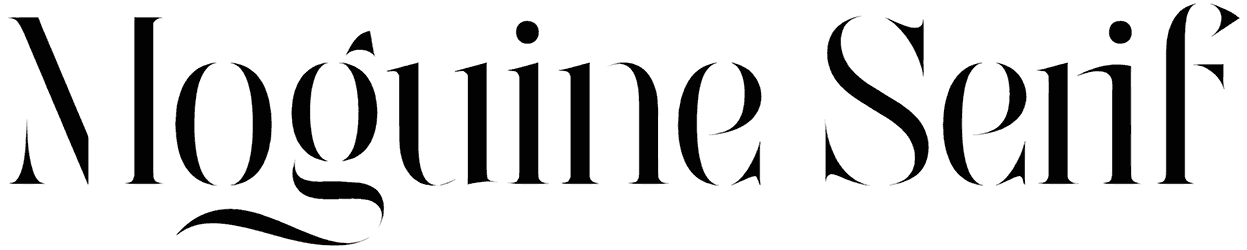
Moguine Serif Font
If you are interested in classic styles and want to use a unique one for your upcoming project, don’t miss it. Moguine Serif font is a magazine font with a salient letter style that can be harmonized with any official or unofficial project. It doesn’t offer numerals, but with two styles, you can try it for your layouts like cards, branding, flyers, or whatnot, and be impressive.